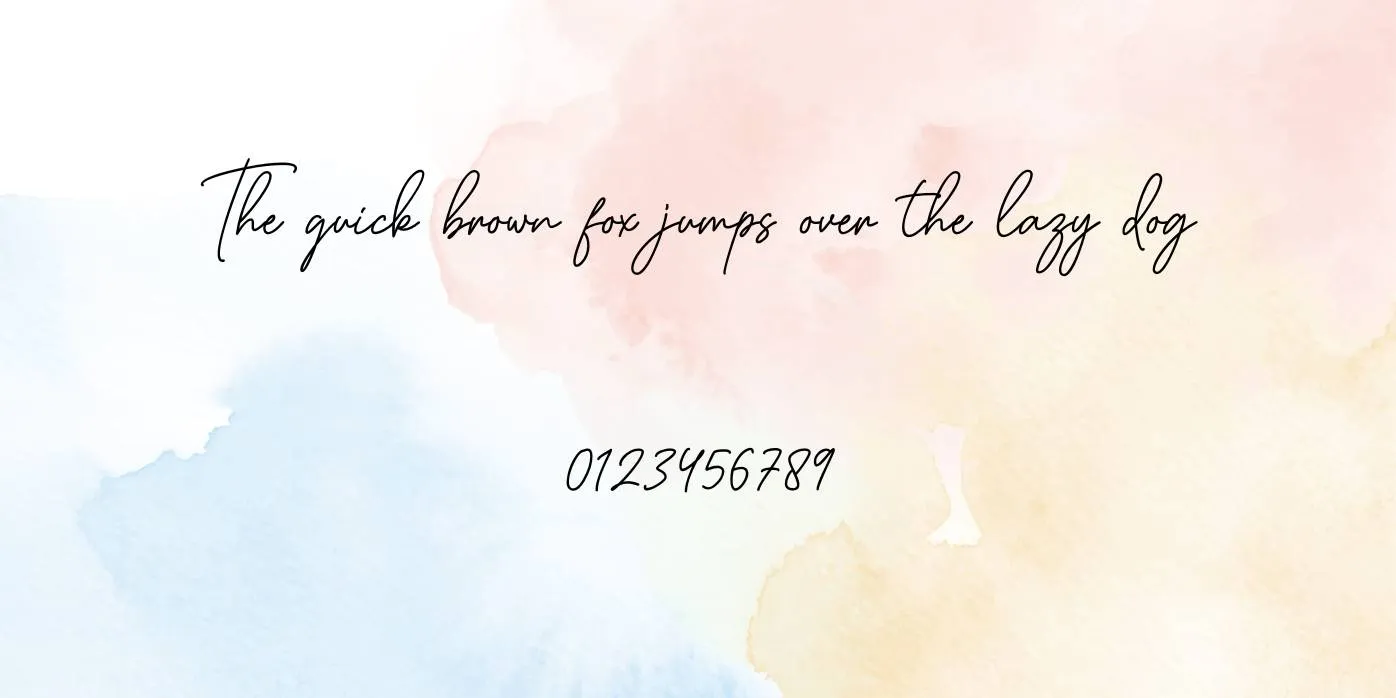
Claudiana Font
We discuss detailed information about a very classy handwritten font Claudiana Font. This stunning font is designed by Jefri Dwi Alfatah and manufactured by Bluestype Studios. It can be used to design many different projects. This awesome texture supports two types of file formats TTF (True Type Font) and OTF (Open Type Font).
The writing style of this font is Italic. It contains 74 characters, 104 glyphs, and 2048 units per Em. The weight of the font is extra-light and its width is medium (normal). You can make all types of projects by using this font personal or commercial.
Usage It is a very useful font and you can make many classy designs by using this font. It has characters, symbols, punctuations, small letters, capital letters, and special characters. This classy font can be used to send wedding invitations, greeting cards, and other event invitations. It can also be used to design handwritten quotes and romantic letters.
Attractive posts for social media and advertisements for any brand that relates to love or classical look can be made by using this font. To make different types of designs in Adobe Photoshop, CSS, and Canva you can use this font as well. It is a very nice font for making website designs and graphic designs. You can also use this font for making logos and titles.